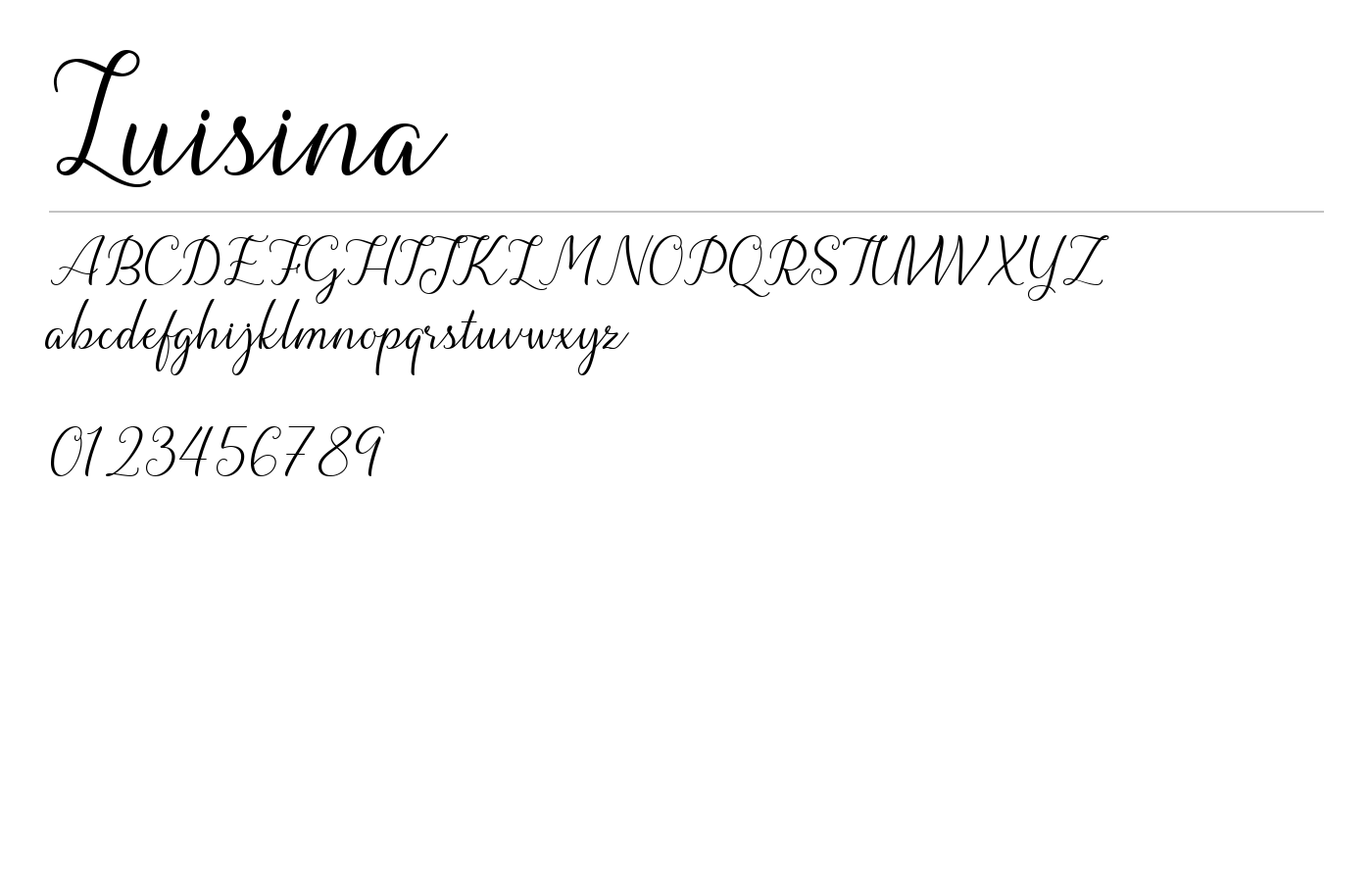
Luisina is an elegant and refined script font characterized by its slender, flowing strokes and a handwritten charm that combines both delicacy and sophistication. Its light weight and graceful letterforms with subtle flourishes make it perfect for invitations, branding, and editorial designs where a touch of classic, stylish warmth is desired. This font brings a sense of personalized luxury, ideal for fashion, beauty, and classy lifestyle projects.
Luisina Font
About Luisina Font
| Designer | Tezar Tantular |